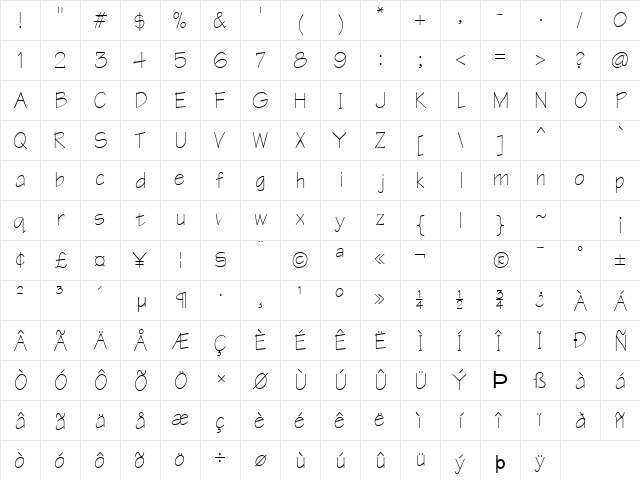
Tek Normal
Design Context for Tek Typeface
Tek offers clean, dependable letterforms without strong stylistic allegiance, making it a practical choice for designers who need flexibility.